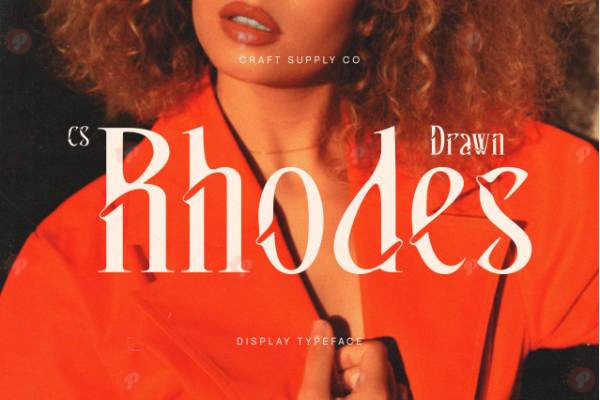
The CS Rhodes Drawn Font is a hand-drawn and creative typeface, perfect for posters, social media graphics, logos, branding, greeting cards, and display typography. Its organic, artistic style adds personality and charm to every design.
Ideal for digital and print projects, CS Rhodes Drawn brings a casual, handcrafted feel, making your work stand out with uniqueness and creativity.
Style: Hand-Drawn / Creative / Display Typeface
Perfect for: Posters, Social Media Graphics, Logos, Branding, Greeting Cards & Display Typography
Give your designs a personal touch with the unique CS Rhodes Drawn Font.